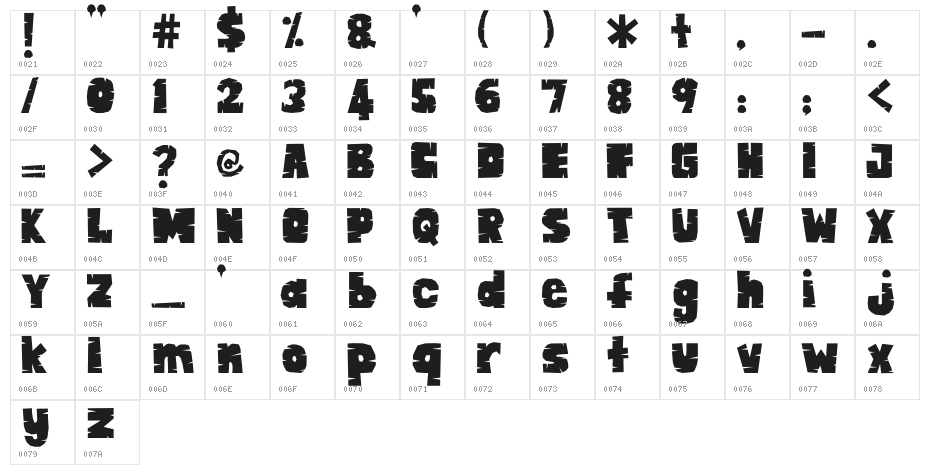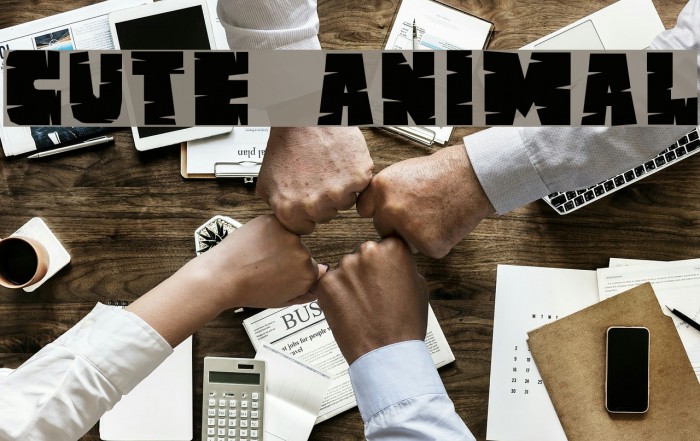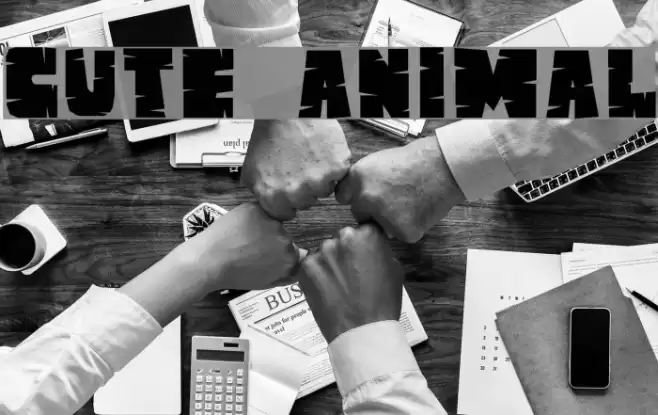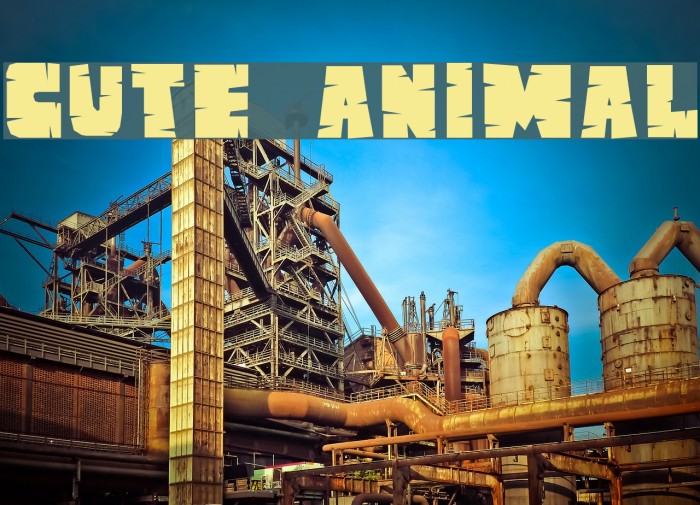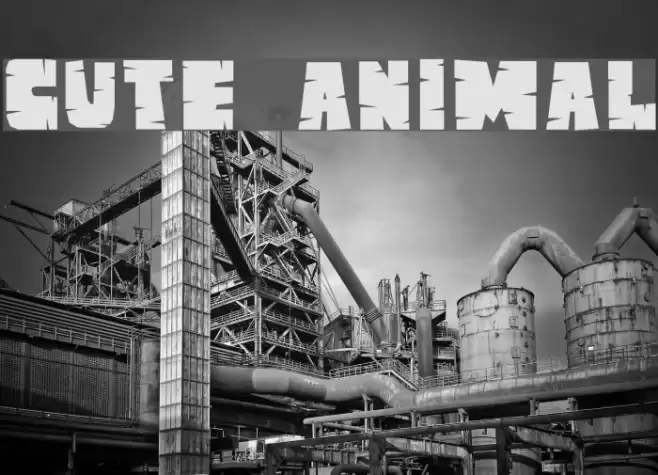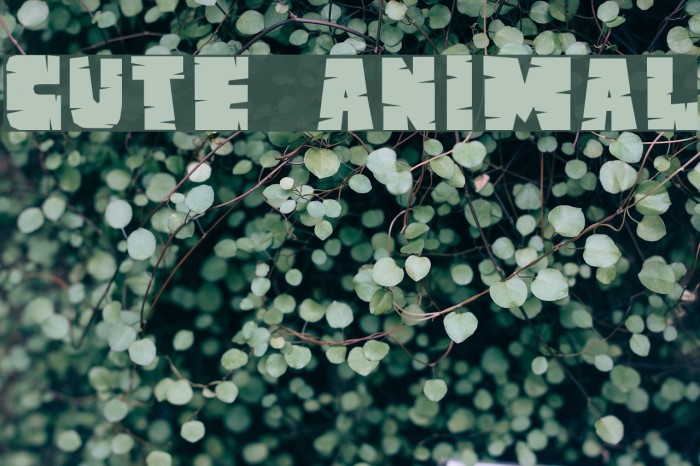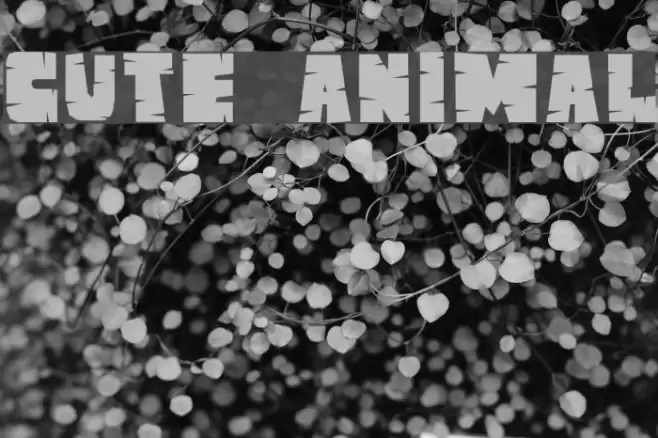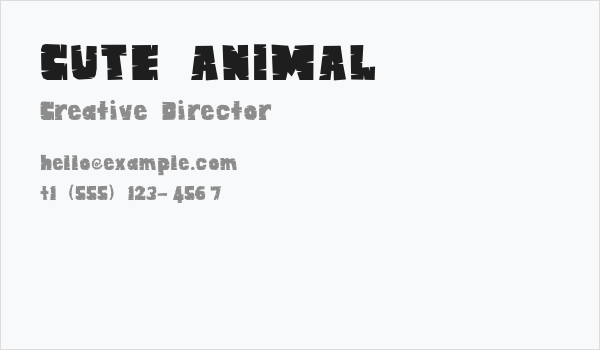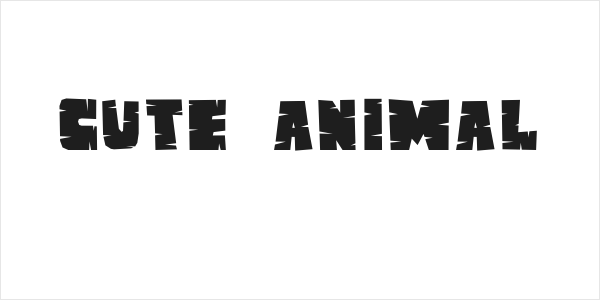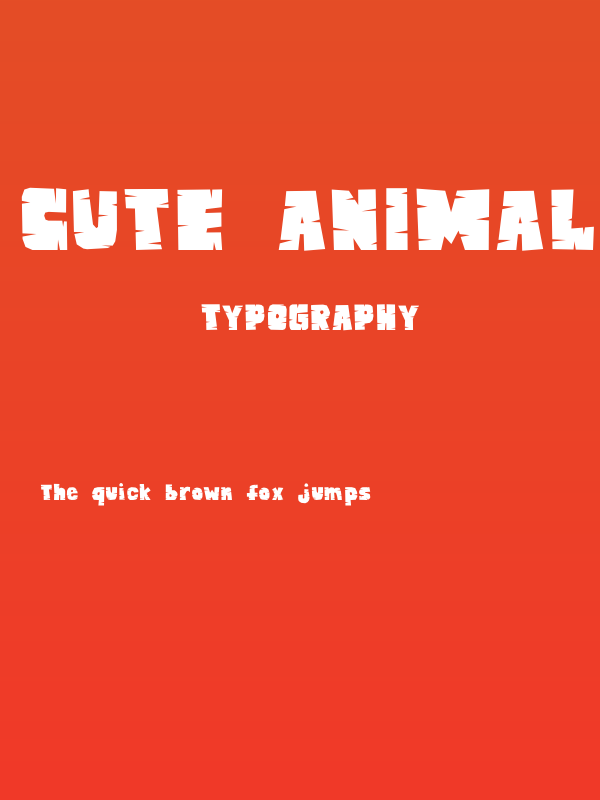
CUTE ANIMAL Font
CUTE ANIMAL Description
This font features a bold and playful design with a unique, irregular pattern that gives it a dynamic and energetic feel. The characters are constructed with a blocky, geometric style, incorporating jagged edges and cut-out shapes that create a sense of movement and excitement. The uppercase and lowercase letters maintain a consistent weight, enhancing the font's bold appearance. Numbers and special characters follow the same design principles, ensuring a cohesive look. This font's distinctive style makes it stand out, perfect for projects that require a fun and engaging visual impact.
| Overall Style | Playful, Energetic |
| Proposed Projects | Ideal for children's books, playful branding, event posters, and creative social media graphics. |